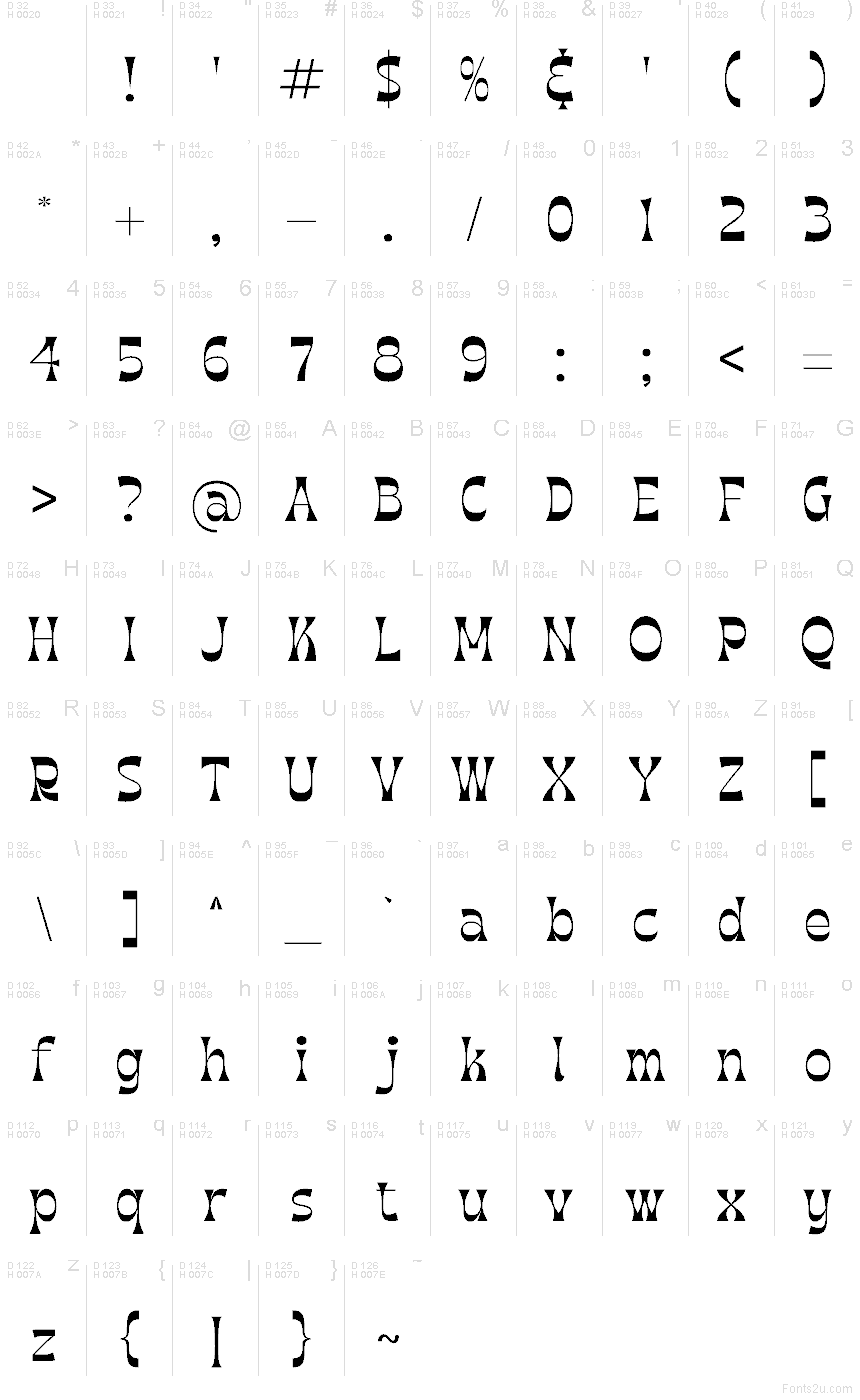
Morgai Retan by TimelessType.co is a free retro display font with a dramatic mod mood. The letters pair big rounded bowls with sharp, tapering wedge forms, so the font feels both soft and theatrical, with a slightly psychedelic swing that recalls late-60s and early-70s lettering.
It fits posters, record-style cover lines, boutique branding, cafe menus, and title cards where a few words can carry the look, and this free font also suits monograms or drop caps because the exaggerated contrasts give even short settings a strong silhouette. It works best when you want vintage glamour without drifting into heavy ornament.